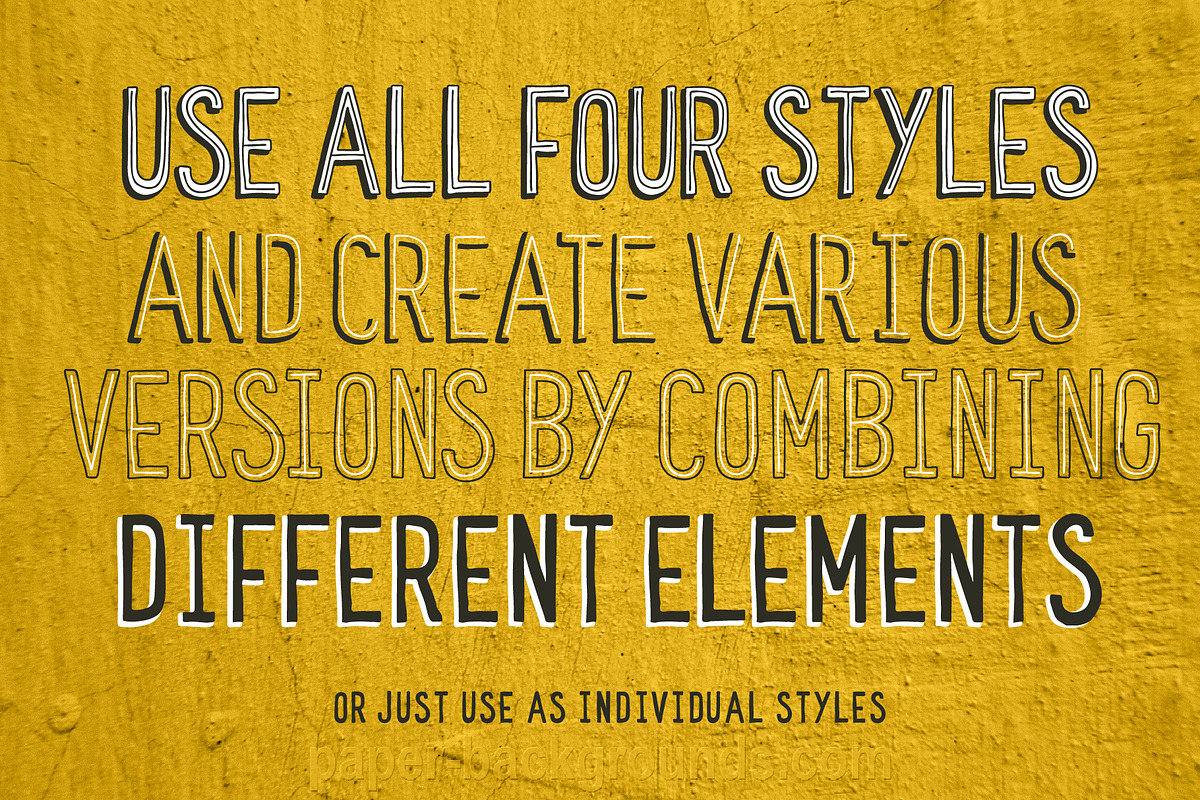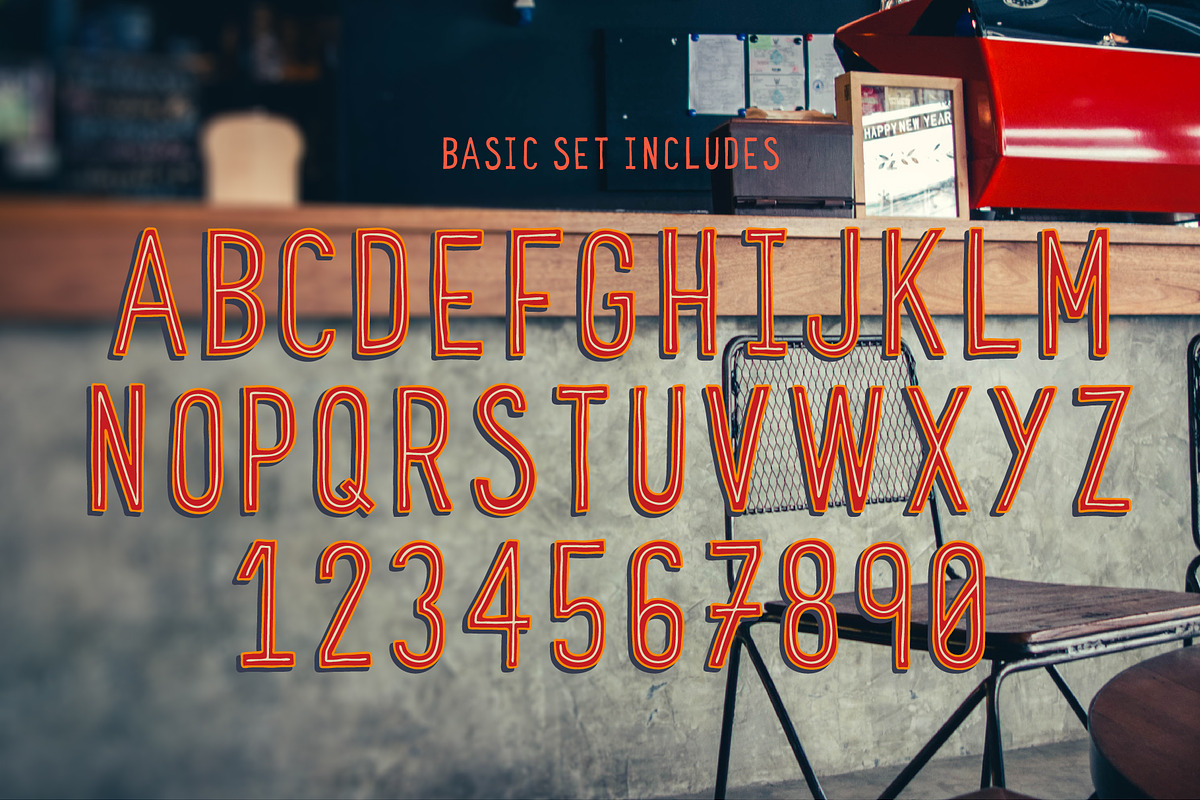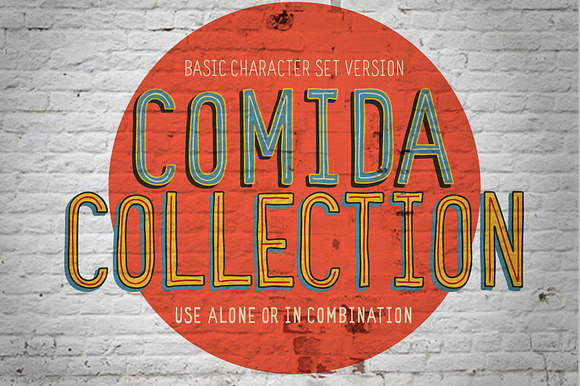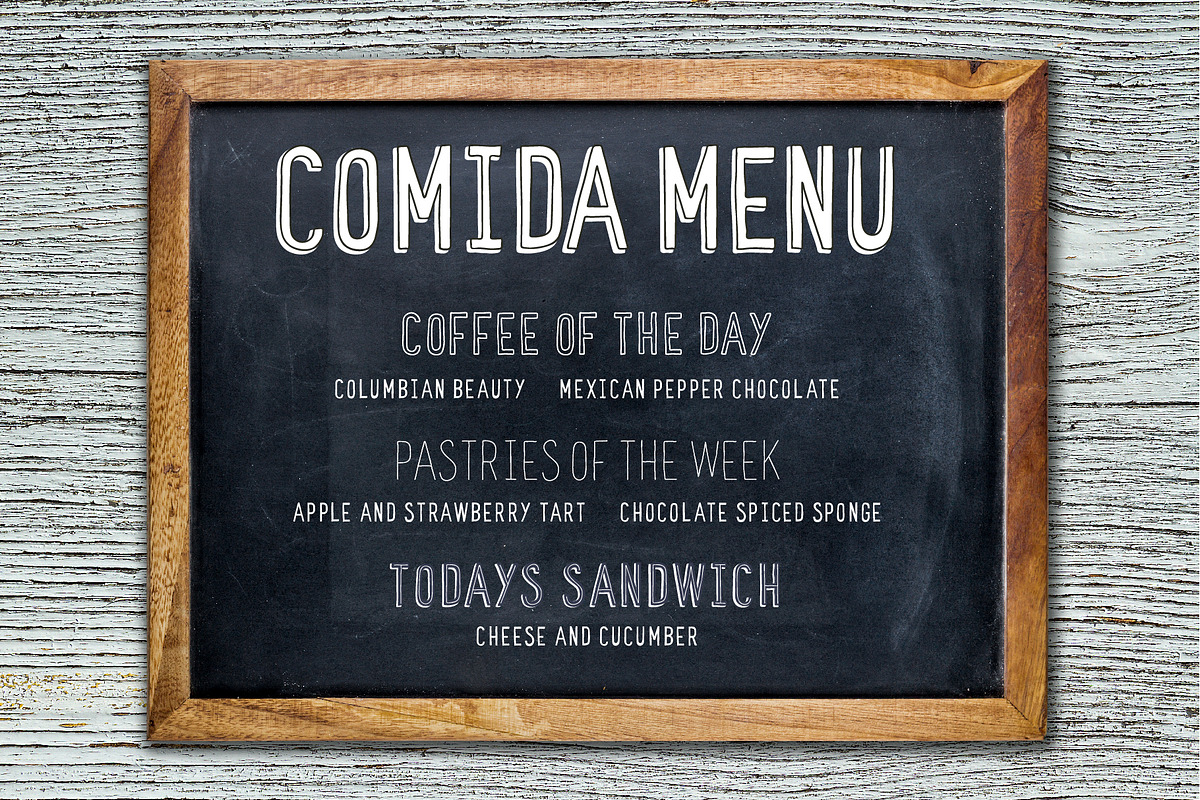
Comida Funky 4 Font Collection
Comida is a Hand-Drawn typeface with four separate styles that can be used alone, altogether, or combined to create custom style variations. Use as Headers for Menus, Wall Graphics, Posters or any item that needs a hand-drawn, playful, typeface.
Comida has been programmed say all styles align correctly. Simply copy and Paste using the "CMND F" shortcut to paste in place and then change the style. The order of the styles create the "complete" look starts from the bottom layer and continues up: Shadow, Fill, Outline, Line. Create further iterations by using the "subtract" feature in AI to delete elements and create negative and positive characters. How many layers is up to you!
A stroke can be added to all the fonts where deemed necessary and styles can be pushed over, up or down at designers discretion.
This Basic Set contains uppercase alphabetical and numerical characters only. A more extended pack will be available in the coming months.